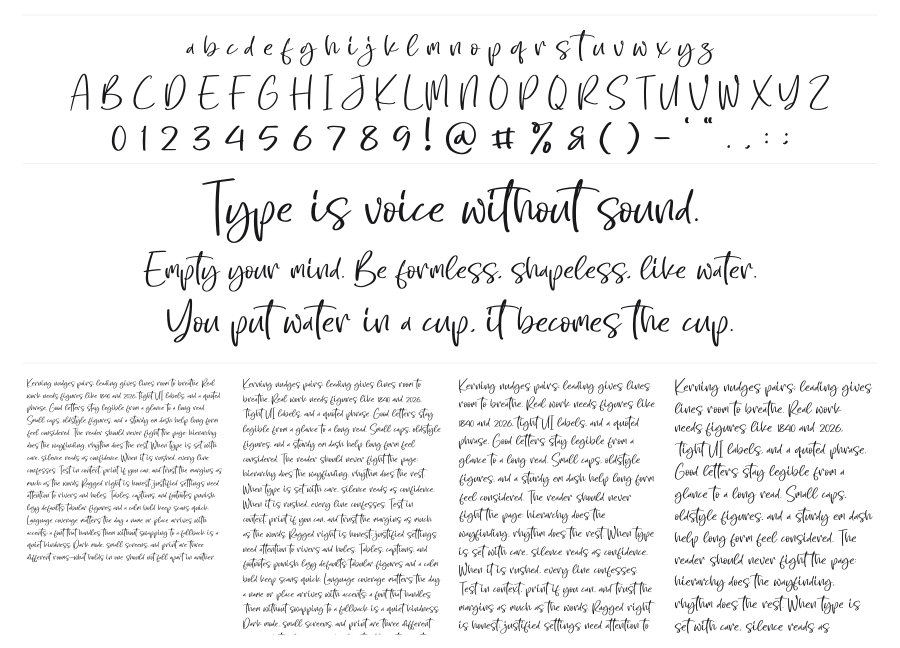
Fantasy Boxstar
Fantasy Boxstar is a casual connected script with a bouncy, hand-lettered rhythm that feels effortless and warm. Generous loops, extended descenders, and lively baseline shifts give it plenty of character without tipping into formality. It suits branding, packaging, and any project that needs a personal, handcrafted touch.